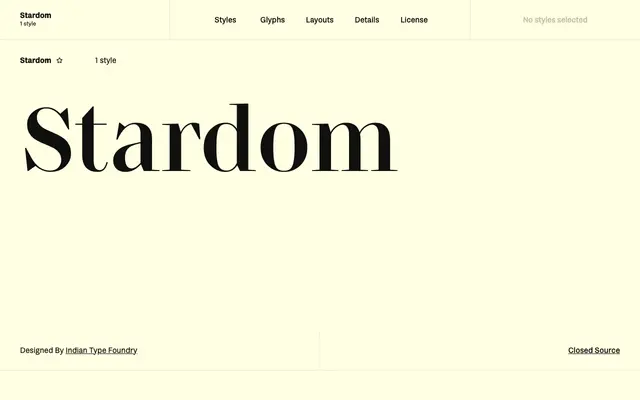
Stardom
A single-weight display serif from Indian Type Foundry, built specifically for use at extreme large sizes in headlines and poster work.
Designed by Indian Type Foundry and released through Fontshare in March 2021, this single-style serif sits squarely in the display camp, offering one Regular weight intended to perform at headline and poster scale. With 387 glyphs covering 135 languages across the Latin Extended range, it has broader coverage than its simple style count might suggest. Available under the ITF Free Font Licence, it suits branding, logos and experimental display work.
Tagged as Serif, Display by Fontshare and described explicitly as a display typeface intended for extreme large sizes, placing it firmly in the display category with serif characteristics.